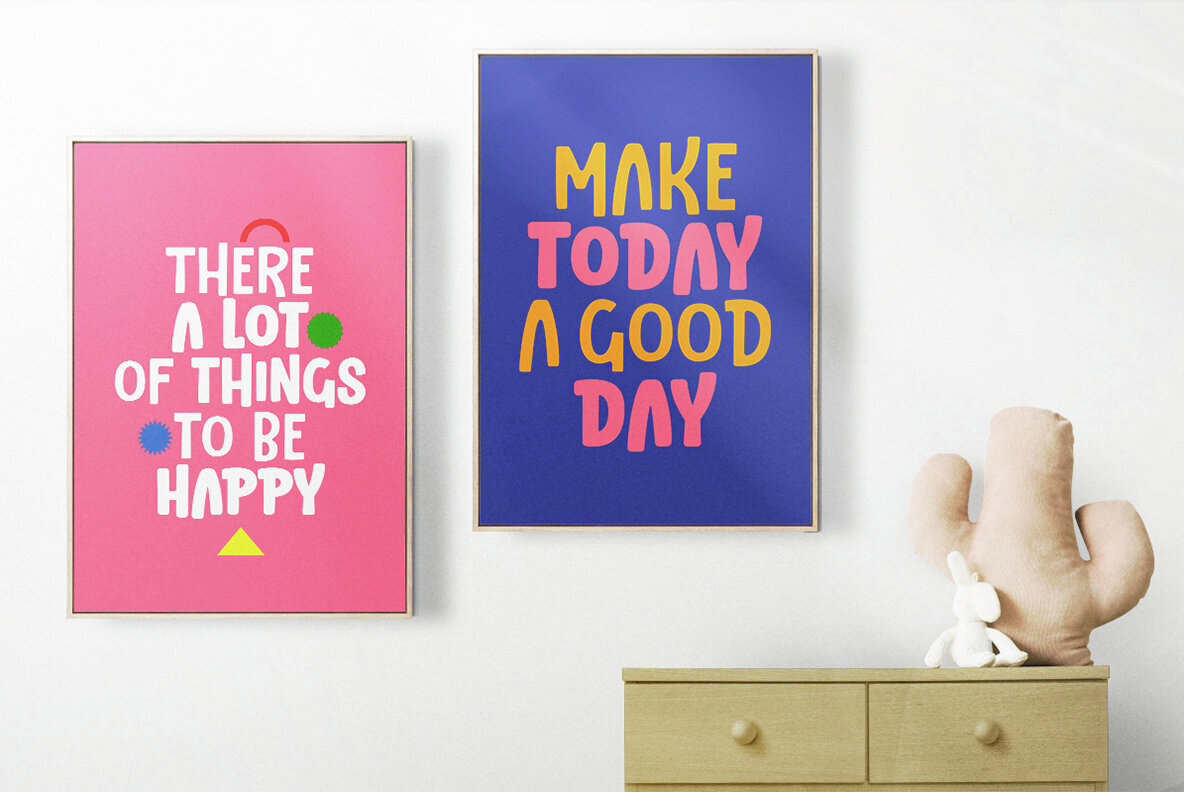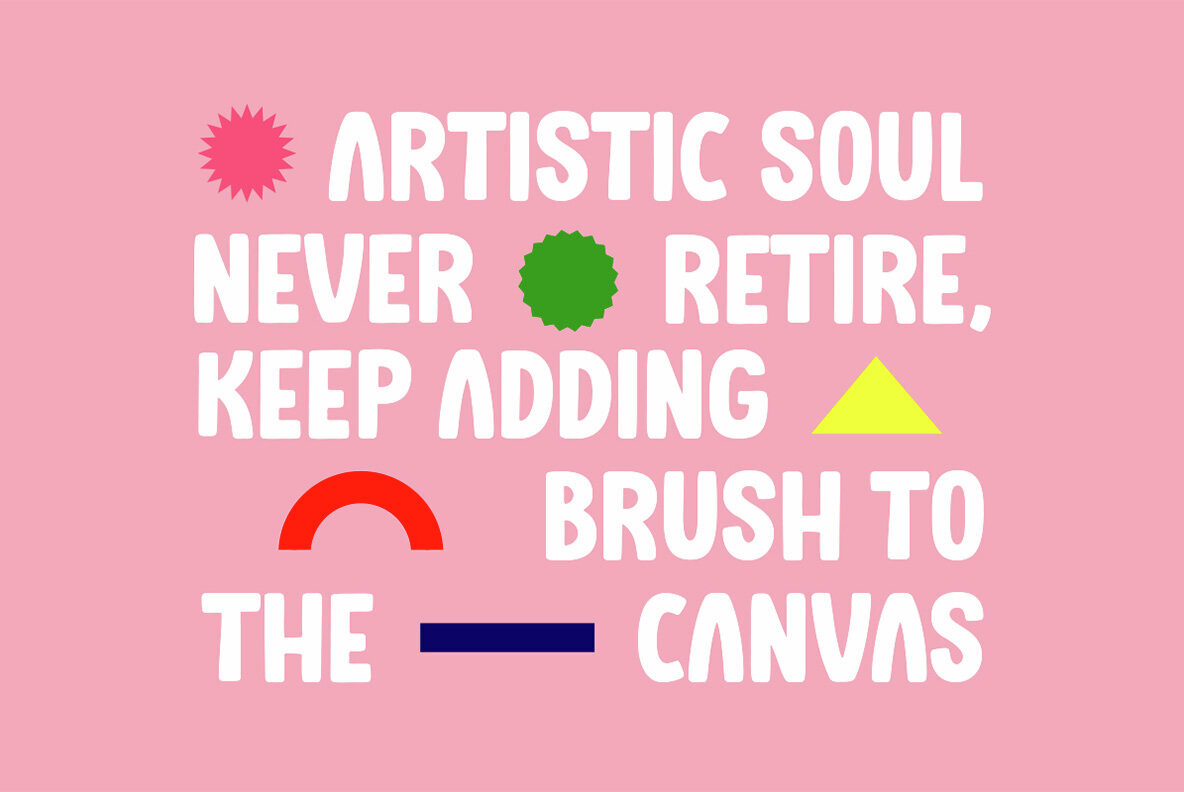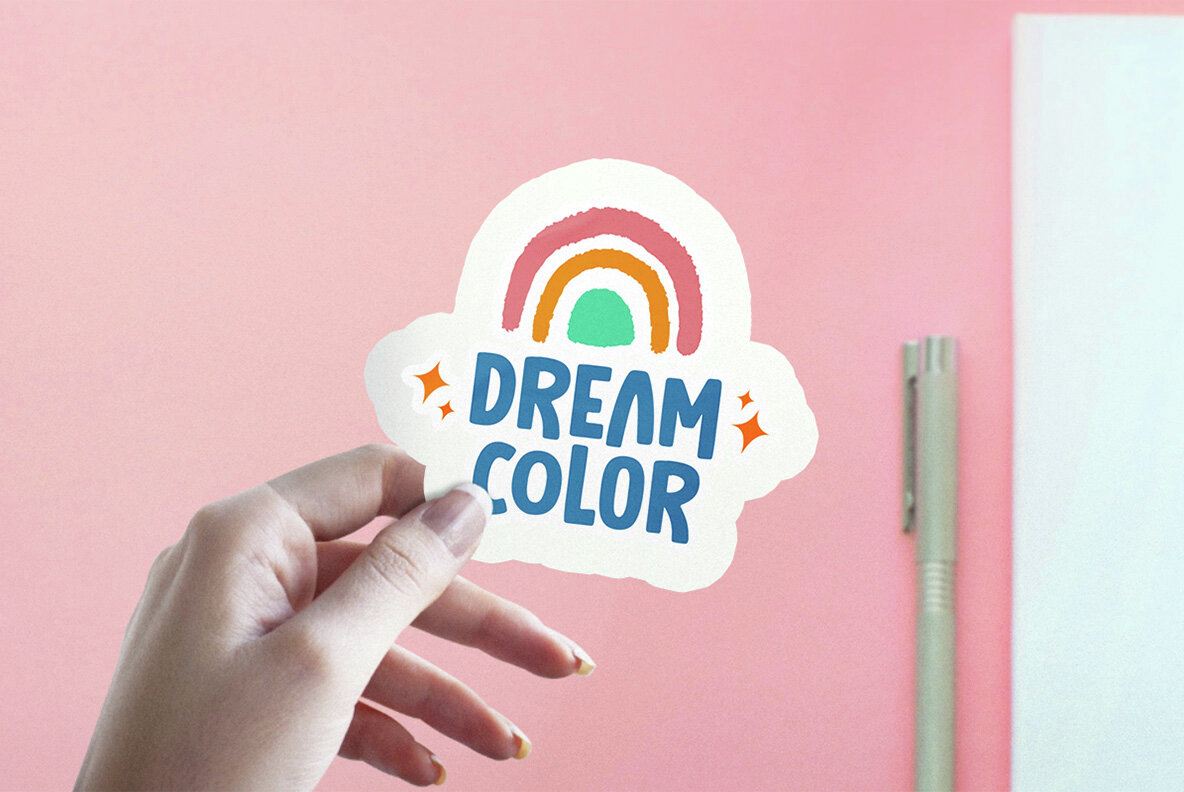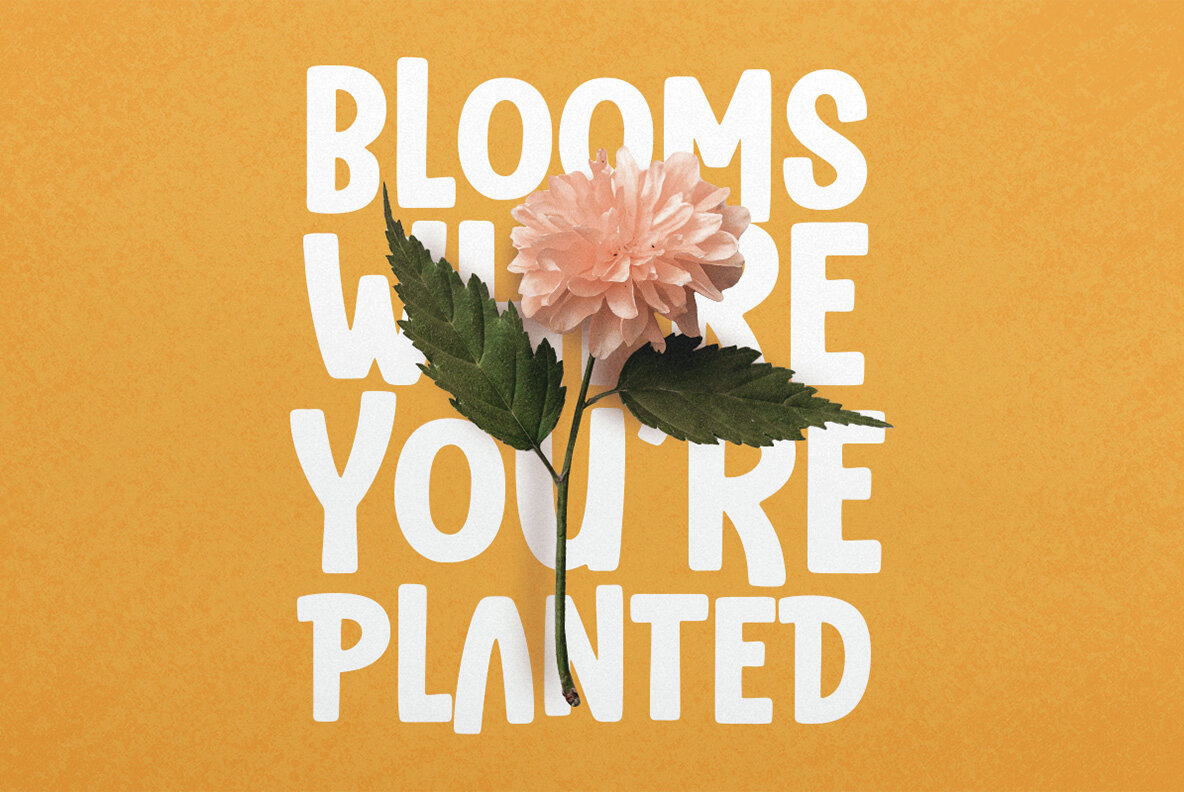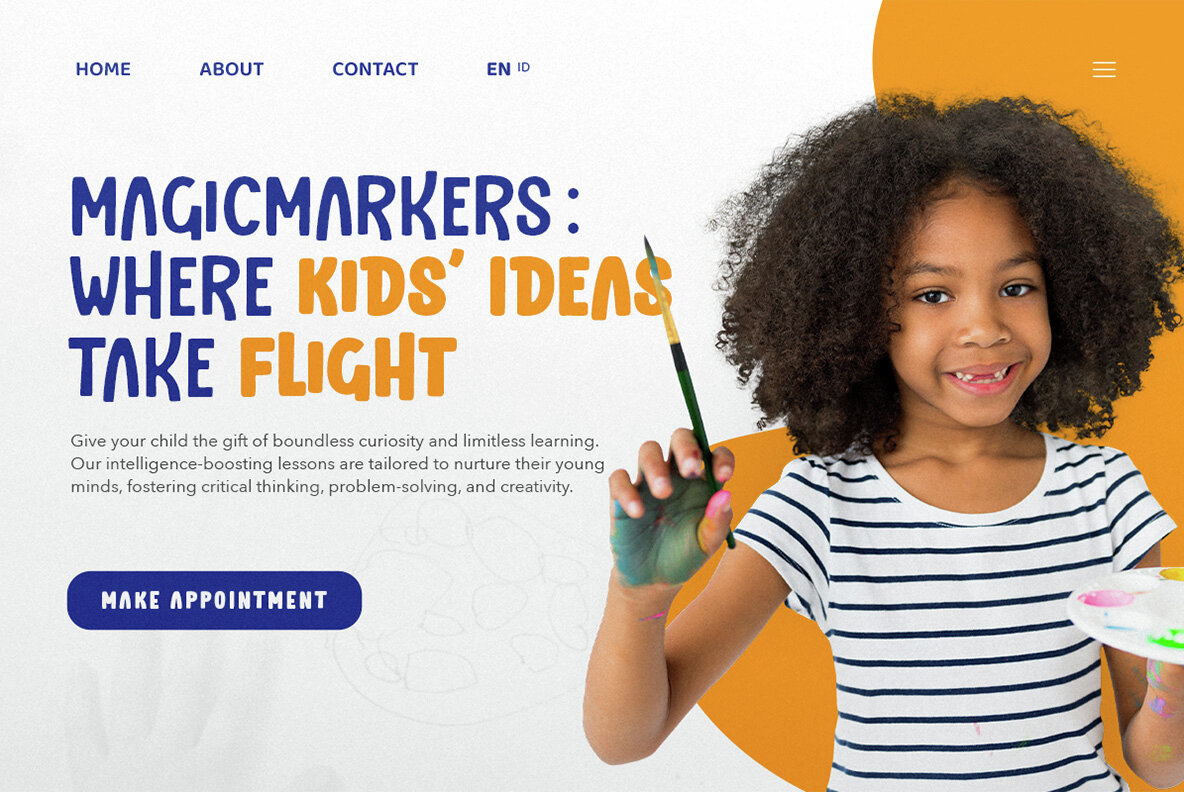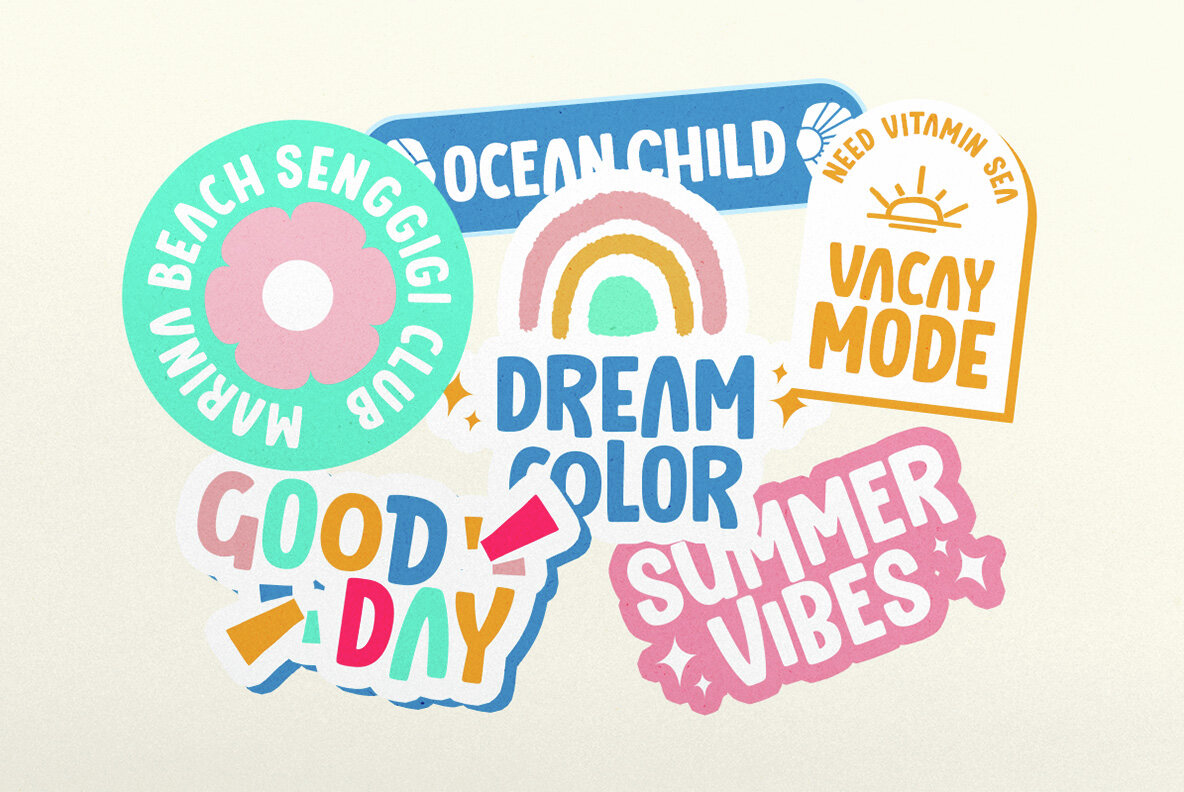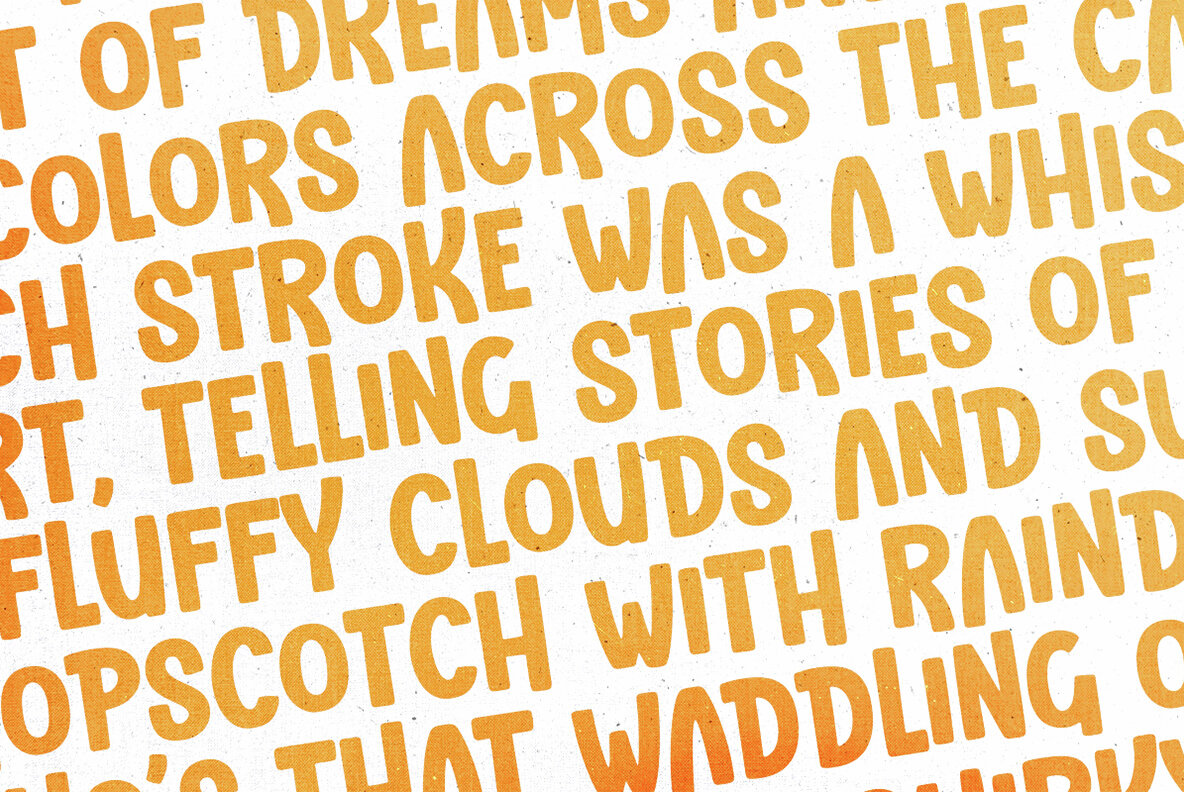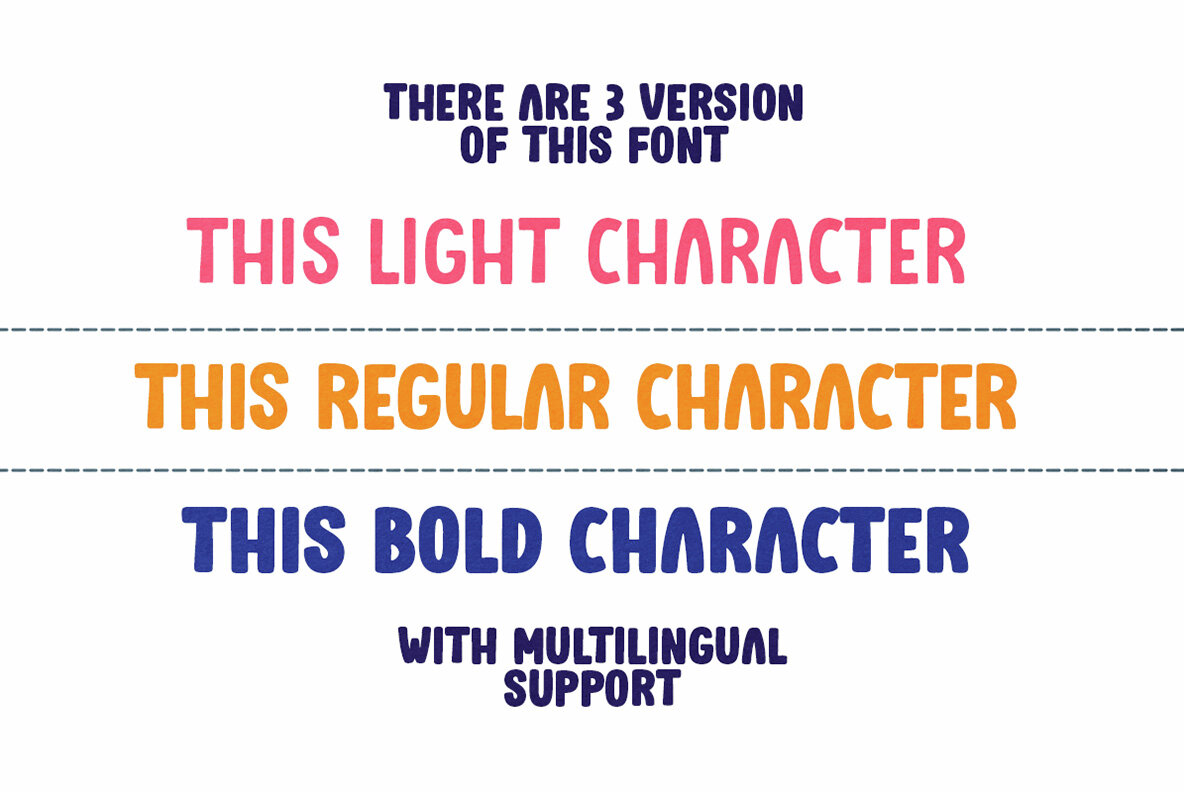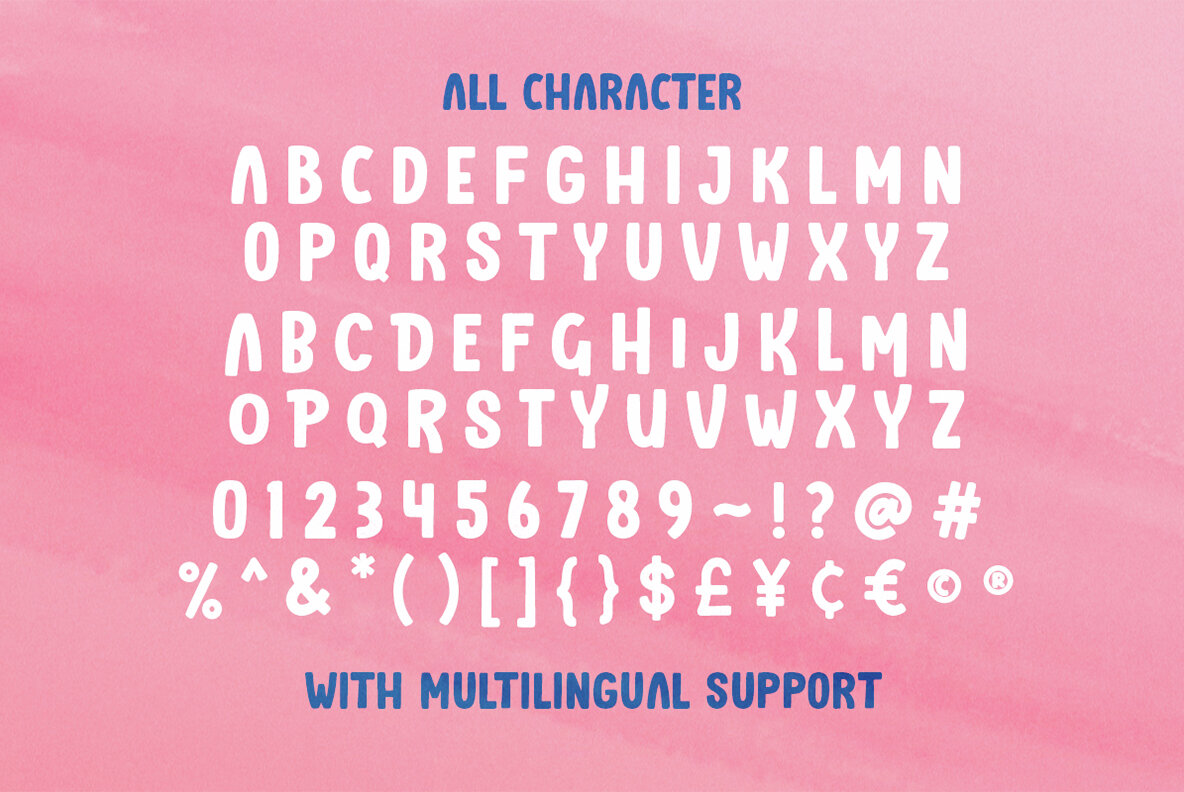
Dreambox Font
Dreambox Light
Dreambox Regular
Dreambox Bold
Dreambox is a playful and whimsical font family designed to bring a sense of joy and creativity to your projects. Its friendly curves and lively character make it perfect for children's books, playful branding, party invitations, and any design that needs a touch of fun. This font have three weight, Light, Regular, Bold, that you can choose or use at the same time. Dreambox is also support multi language.